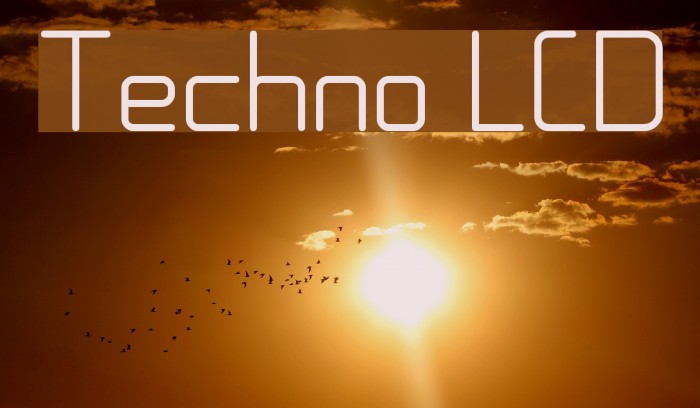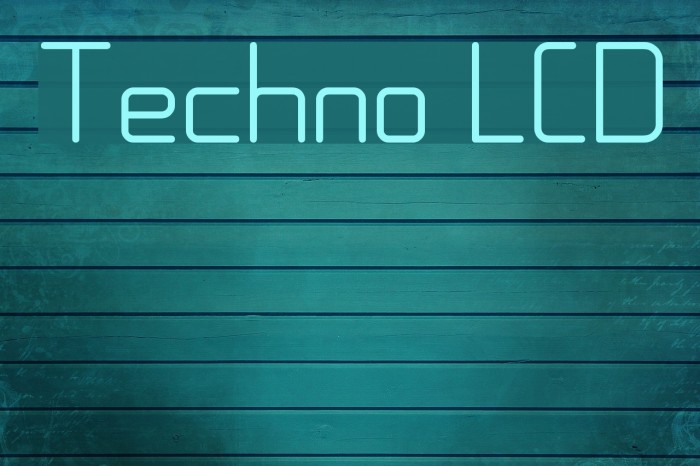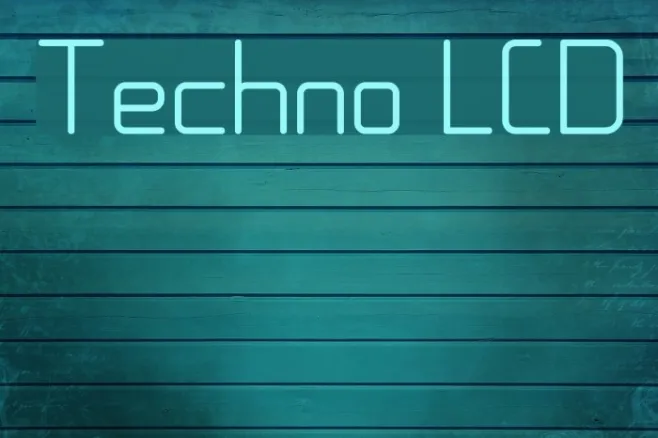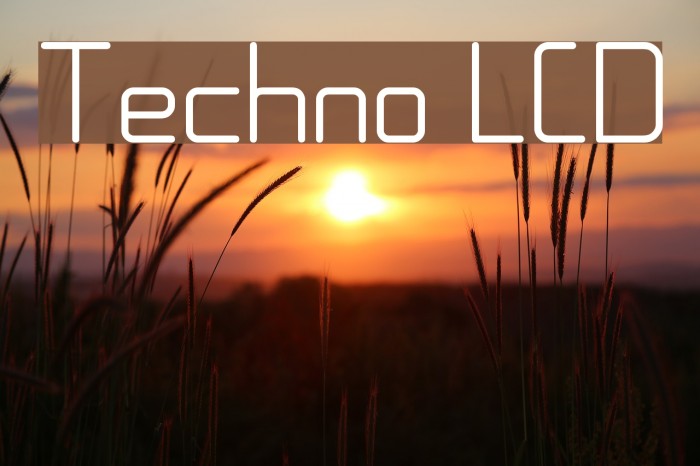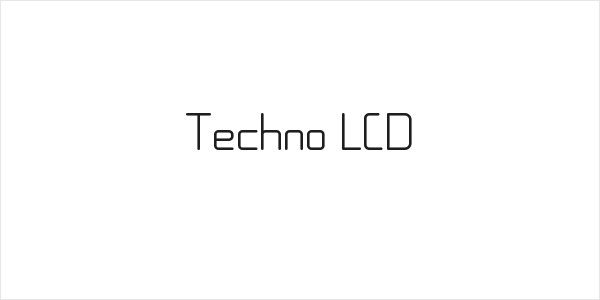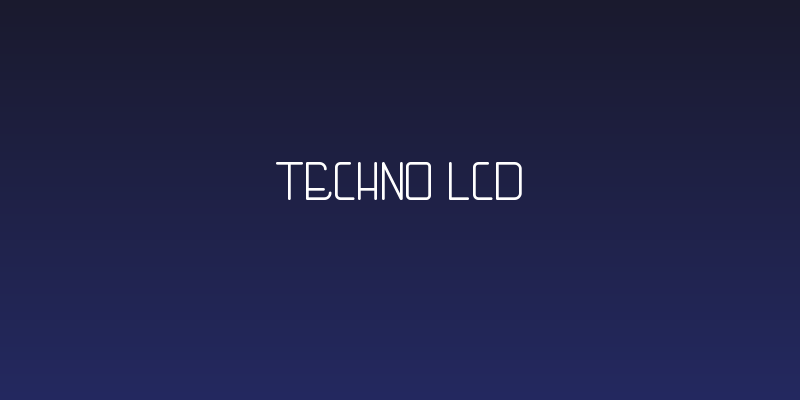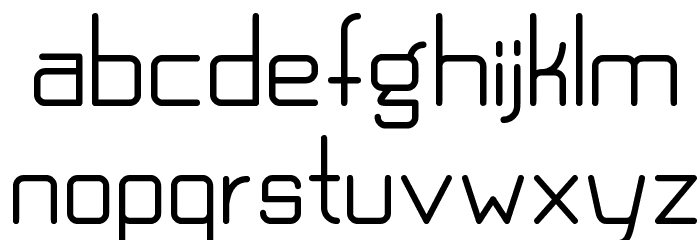
Techno LCD Font
Techno LCD Description
This font features a modern, digital-inspired design with a geometric and technical appearance. The characters are constructed with straight lines and rounded corners, giving it a futuristic and clean look. The uppercase and lowercase letters maintain a consistent style, with uniform stroke widths that create a cohesive appearance. The numerals and special characters are designed to match the overall aesthetic, making it suitable for digital displays and tech-oriented projects. The font's structure is reminiscent of LCD screens, with a minimalist and efficient design that emphasizes readability and clarity.
AlQalam - Ishtiaq Ali
| Use Case | Headlines, Logos, Digital displays |
| Proposed Projects | Ideal for tech branding, digital interfaces, futuristic posters, and electronic product packaging. |
| Author | AlQalam - Ishtiaq Ali |